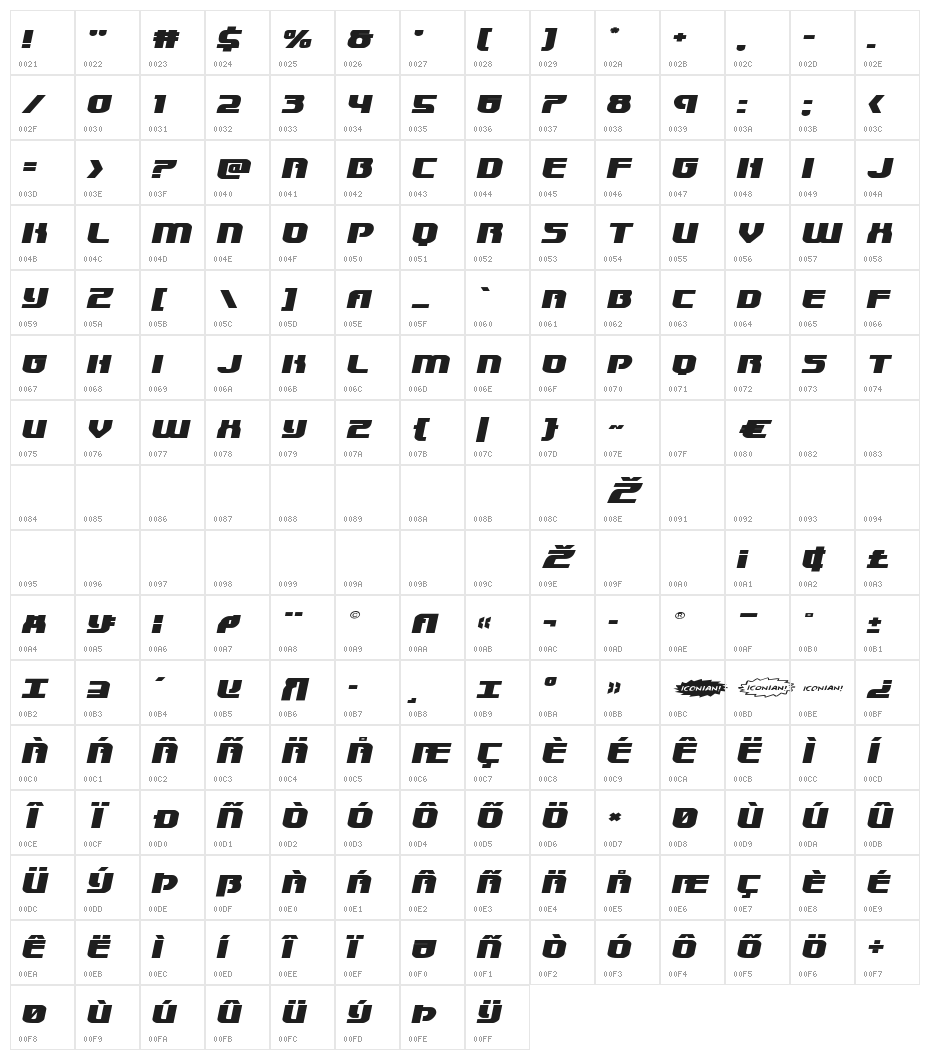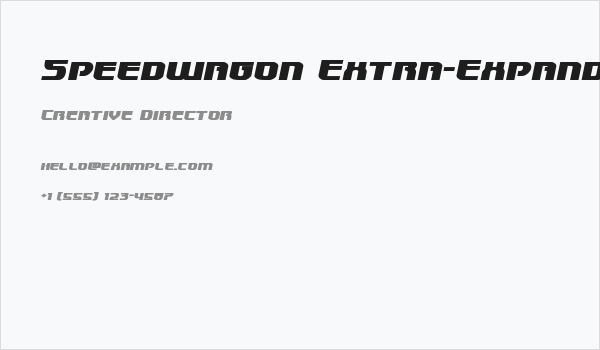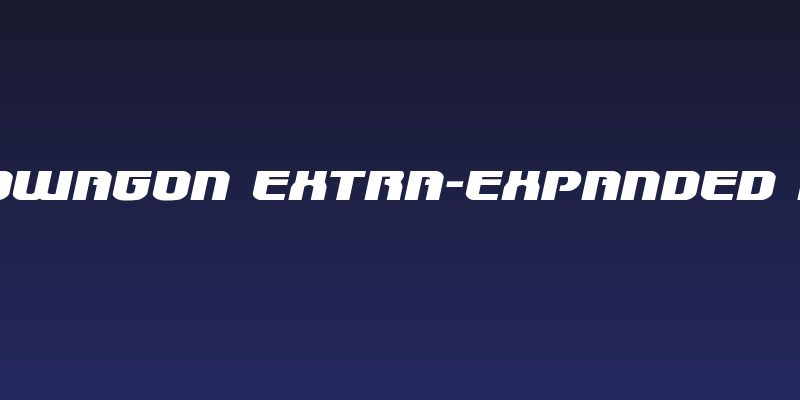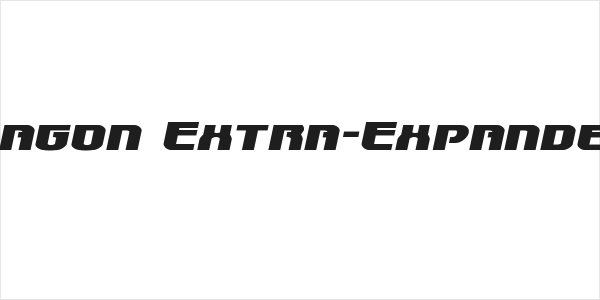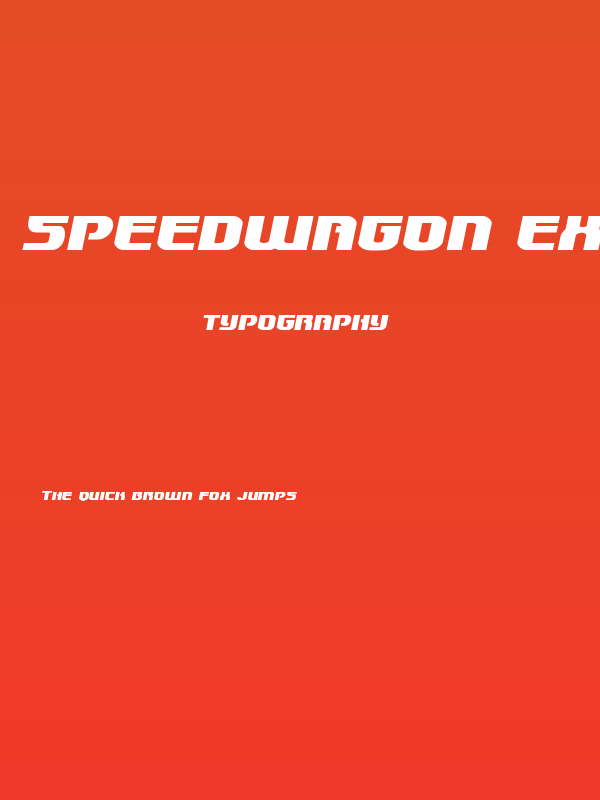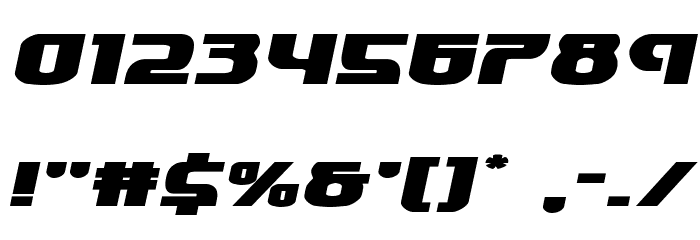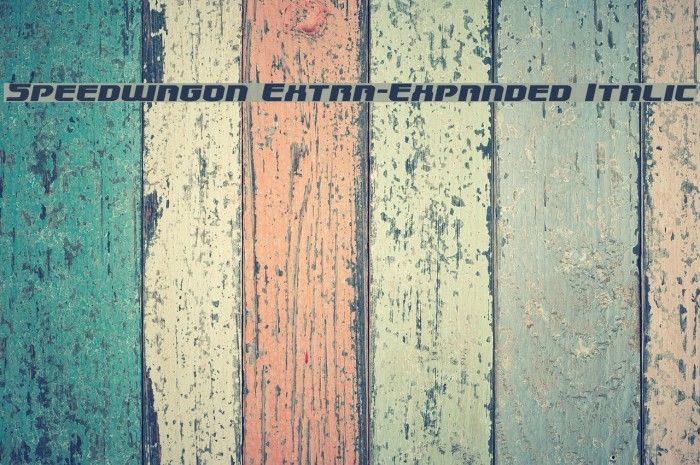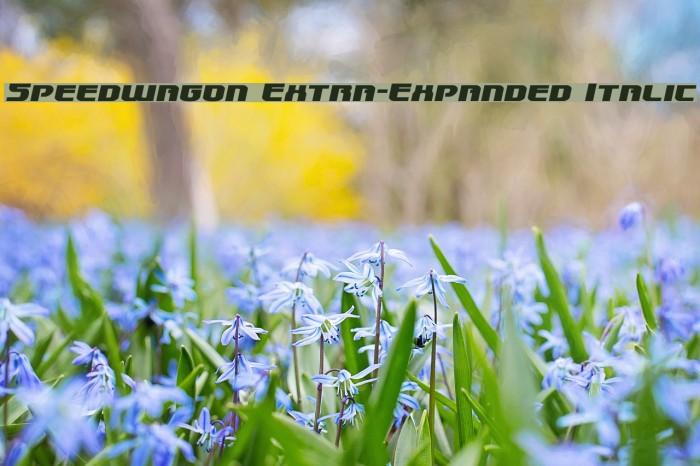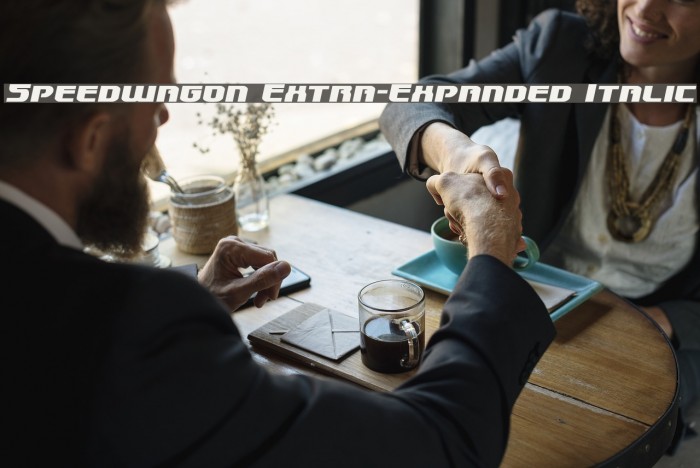
Speedwagon Extra-Expanded Italic Font
Speedwagon Extra-Expanded Italic Description
This font features a bold and dynamic design with an italicized slant, giving it a sense of motion and energy. The characters are extra expanded, providing a wide stance that enhances readability and impact. The strokes are thick and consistent, creating a strong visual presence. The angular cuts and geometric shapes add a modern and futuristic touch, making it suitable for attention-grabbing headlines and titles. The spacing between characters is normal, ensuring clarity while maintaining its bold aesthetic.
| Proposed Projects | Ideal for sports branding, automotive advertisements, video game titles, and dynamic posters. |